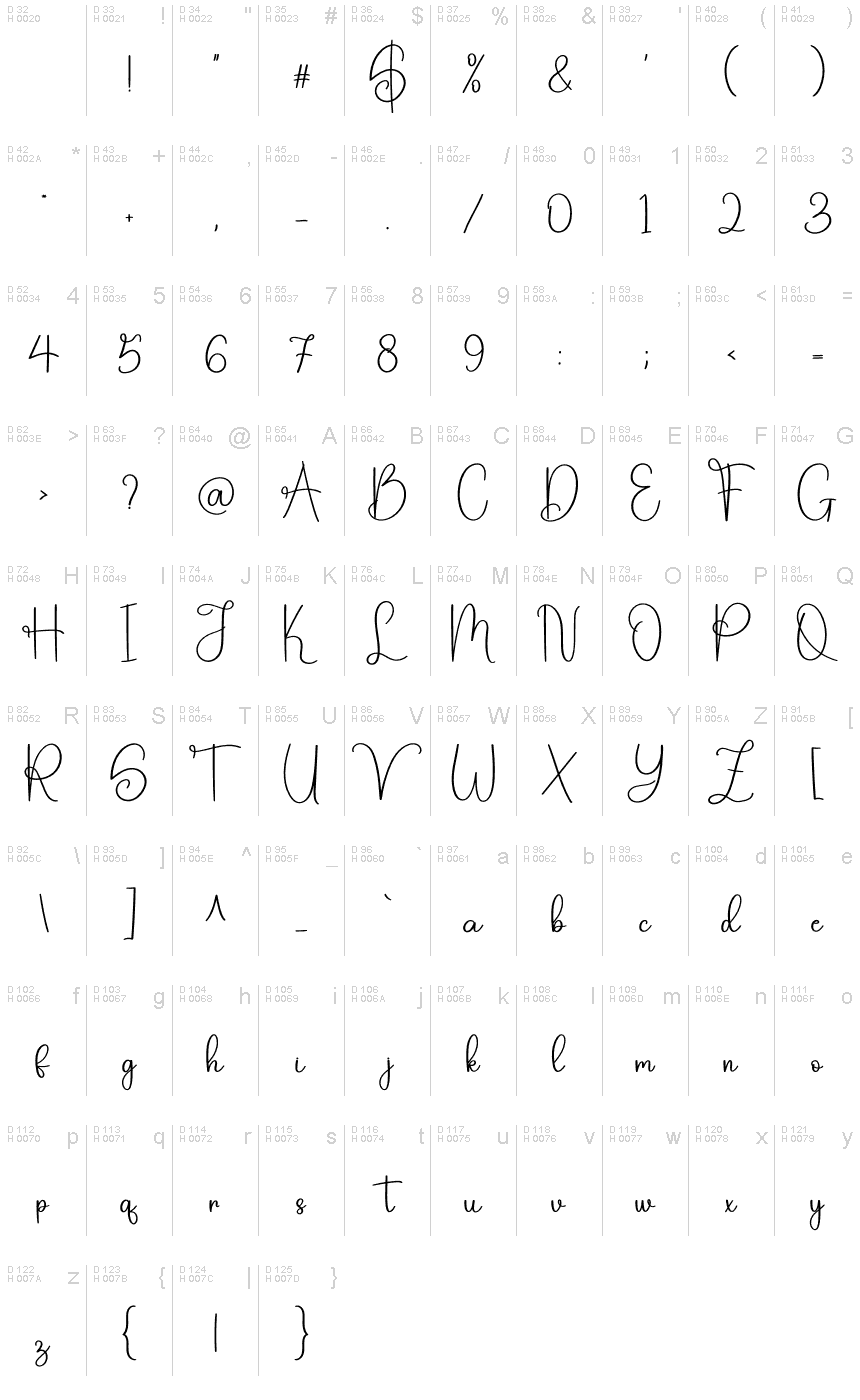
Hello Daddy
Hello Daddy, a beautiful handwritten font by Harlek Studio, adds elegance and charm to any project. Its light weight enhances the delicate strokes and curvatures, creating an exquisite feminine touch.
Perfect for wedding invitations, love letters, and romantic quotes, Hello Daddy exudes grace and sophistication. The font's intricate details bring life to scrapbook pages, personal journals, and handmade crafts. Whether designing a fashion blog or creating stunning social media graphics, Hello Daddy captures the essence of femininity with its graceful handwritten style.